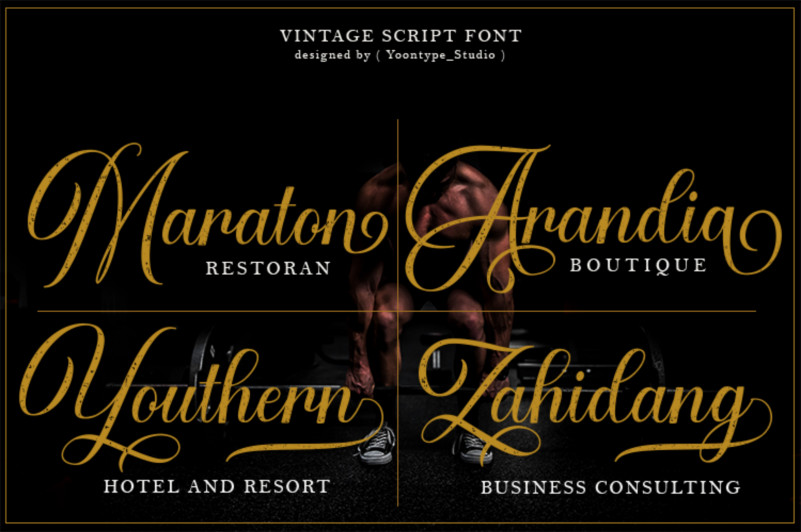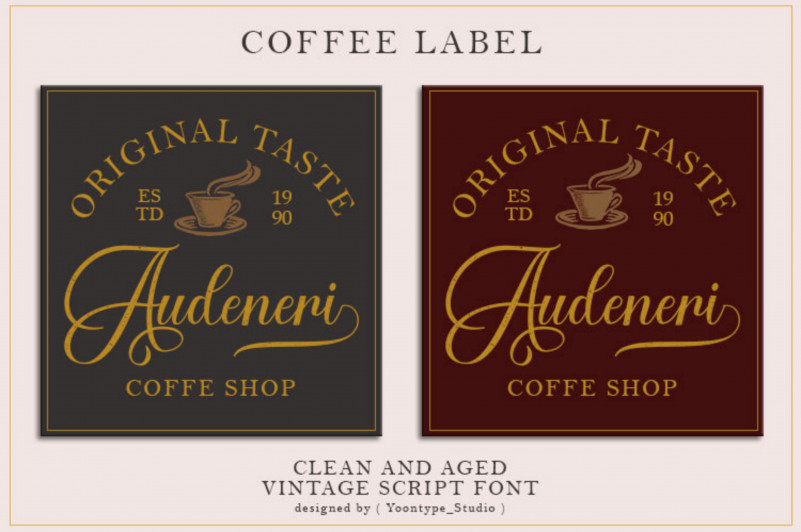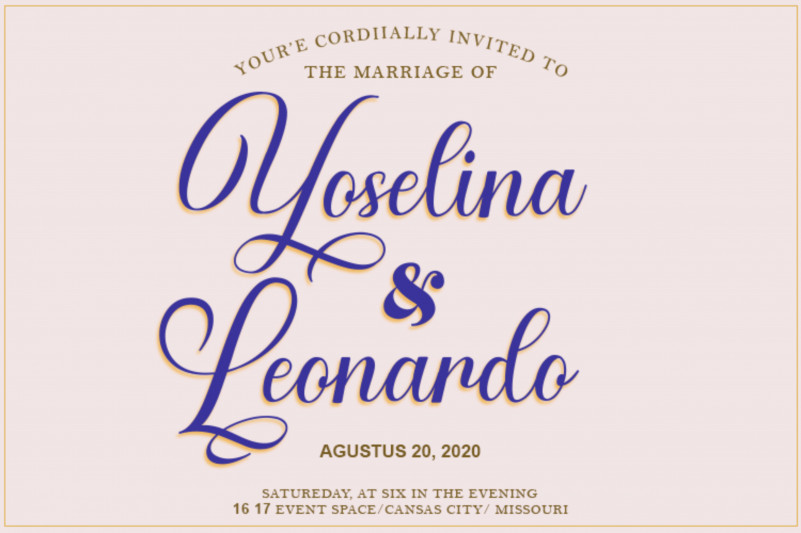
Airthan Script Font
This vintage font is handwritten under traditional calligraphy inspiration and a beautiful mystical soundtrack.
Airthan Script Font comes with a Clean and Aged version, a beautiful, ligature alternative to uppercase and lowercase letters, and is favored by many swash tips. It has Multilingual support